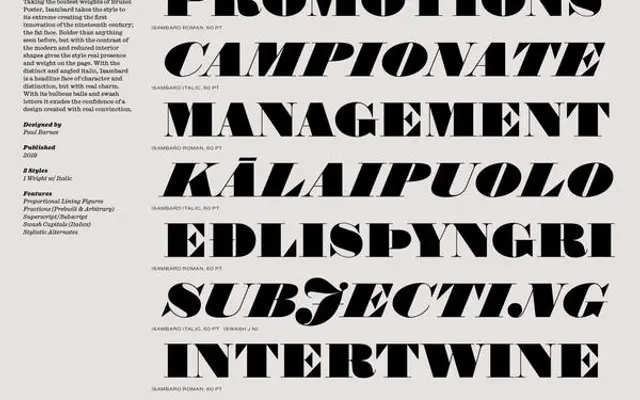
Isambard specimen from Commercial Type
A nineteenth-century fat face revived by Paul Barnes, with exaggerated contrast, ball terminals and joyful swash italics across Text, standard and Condensed cuts.
A fat face display serif designed by Paul Barnes with Tim Ripper and Miguel Reyes. Isambard pushes the Modern serif to its inkiest extreme, with high contrast, bulbous ball terminals and a swash-laden italic. The family covers Text, standard, No 2, Condensed and X Condensed widths, each with Roman and Italic, so it can stretch from a smaller editorial setting to maximally compressed posters. Reach for it where you want nineteenth-century theatrical impact rather than a quiet Modern.
Commercial Type frame Isambard as a fat face revival by Paul Barnes, drawing on the boldest of the nineteenth-century Moderns with exaggerated high contrast, inflated ball terminals and characterful swash capitals.